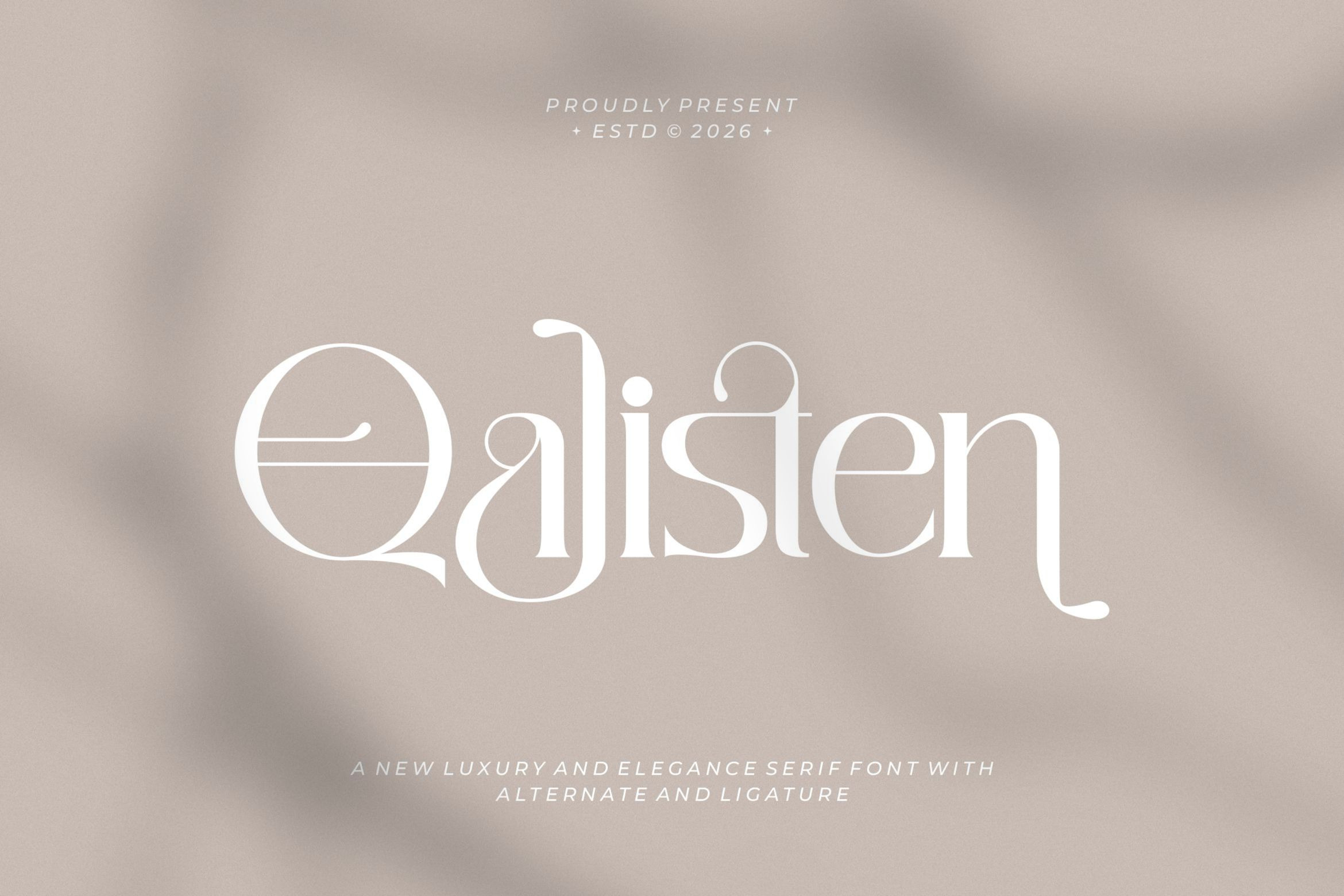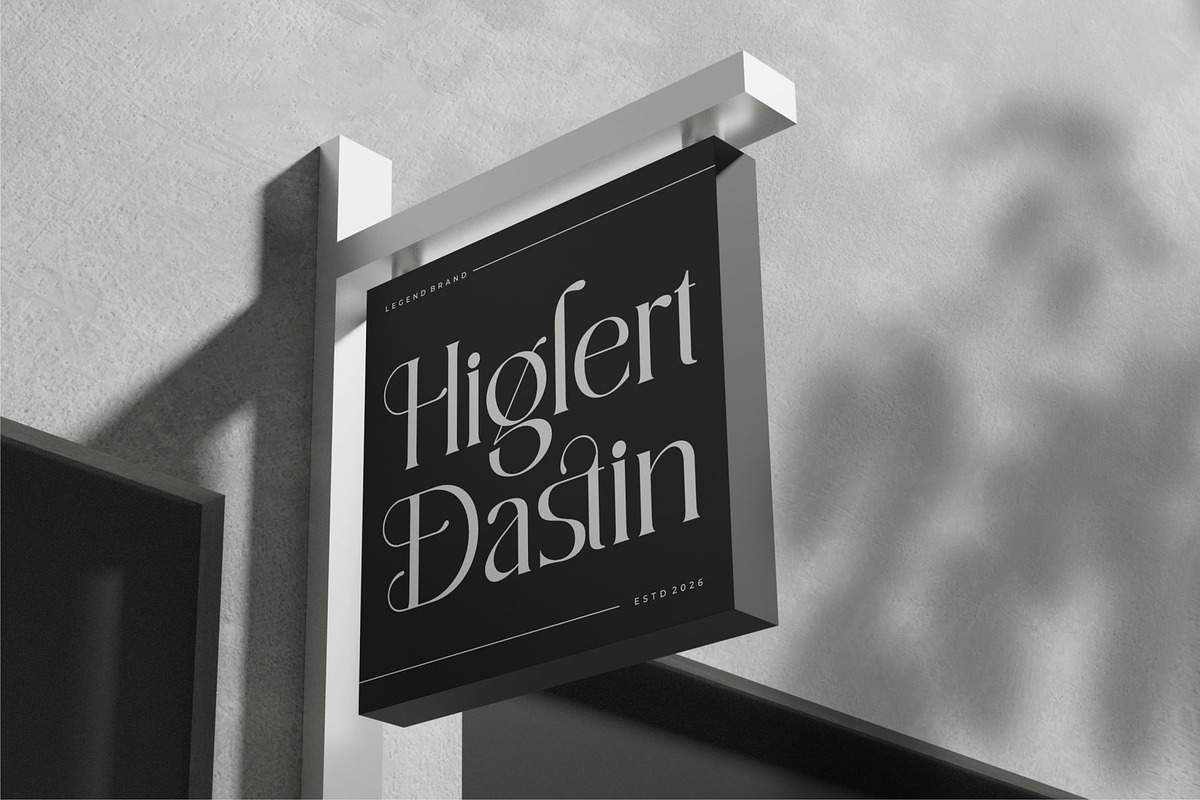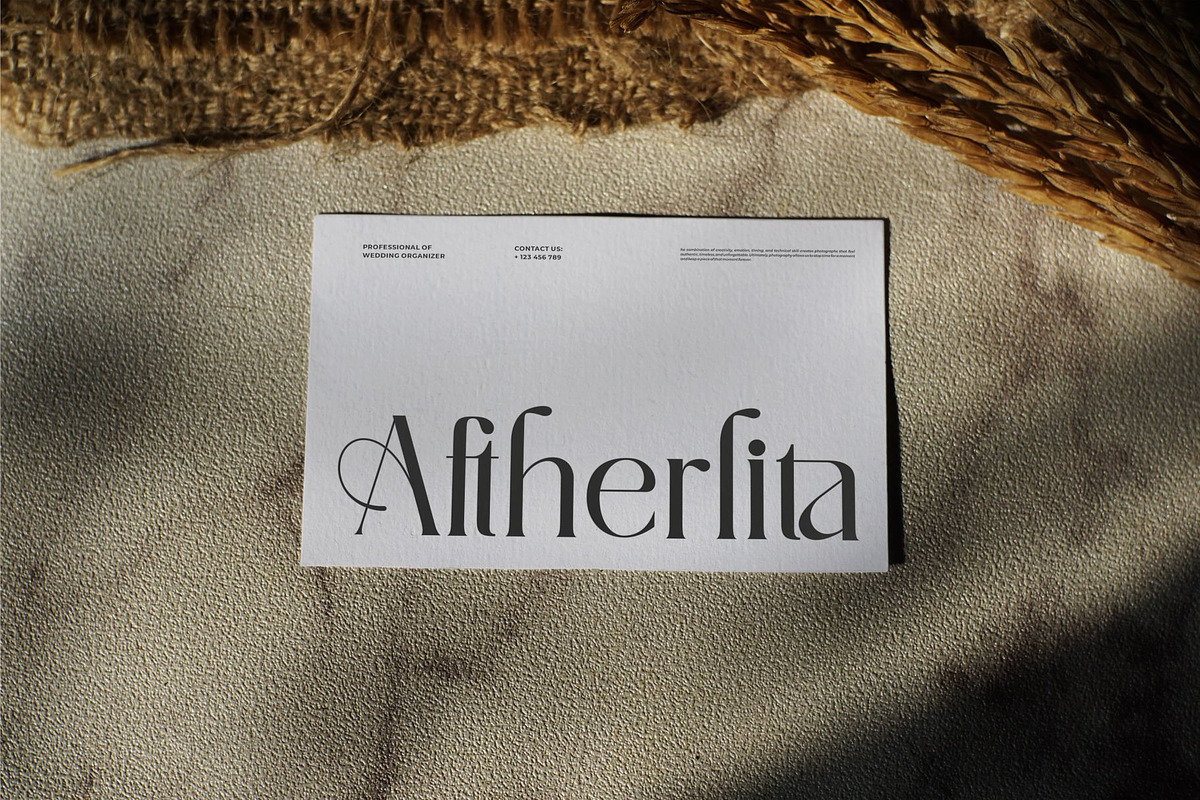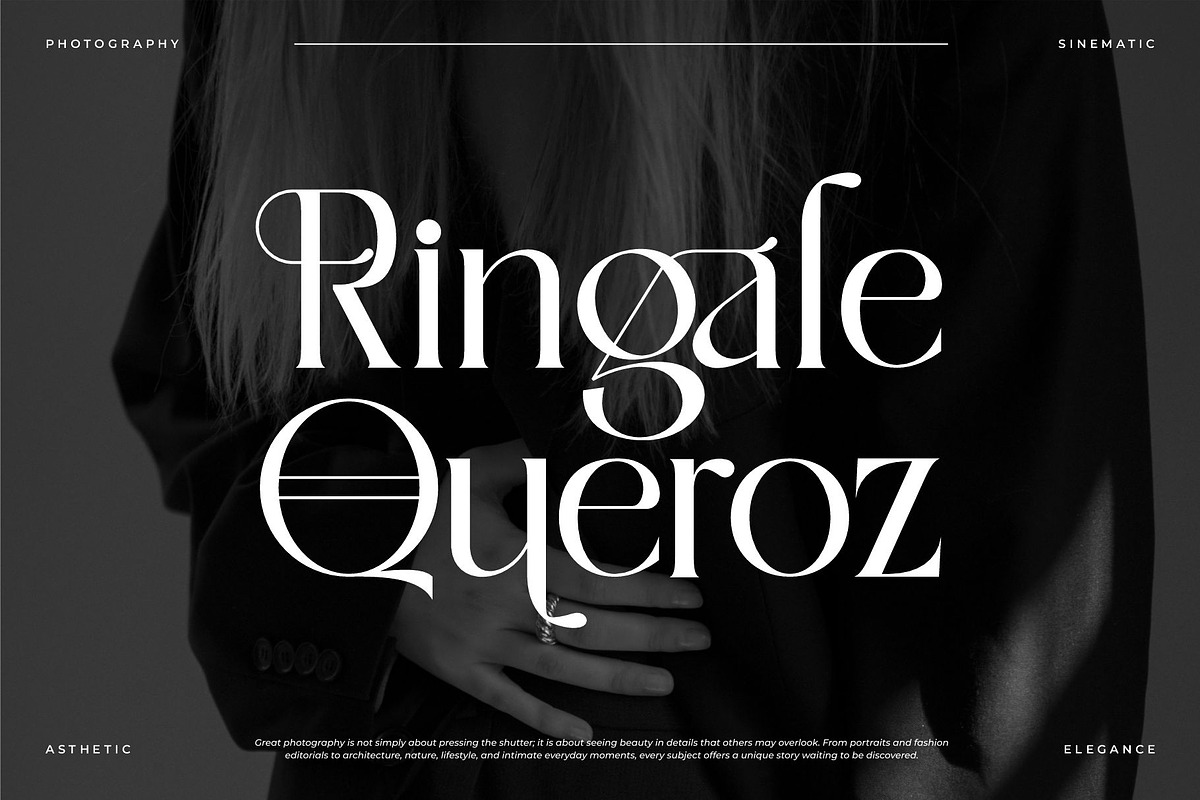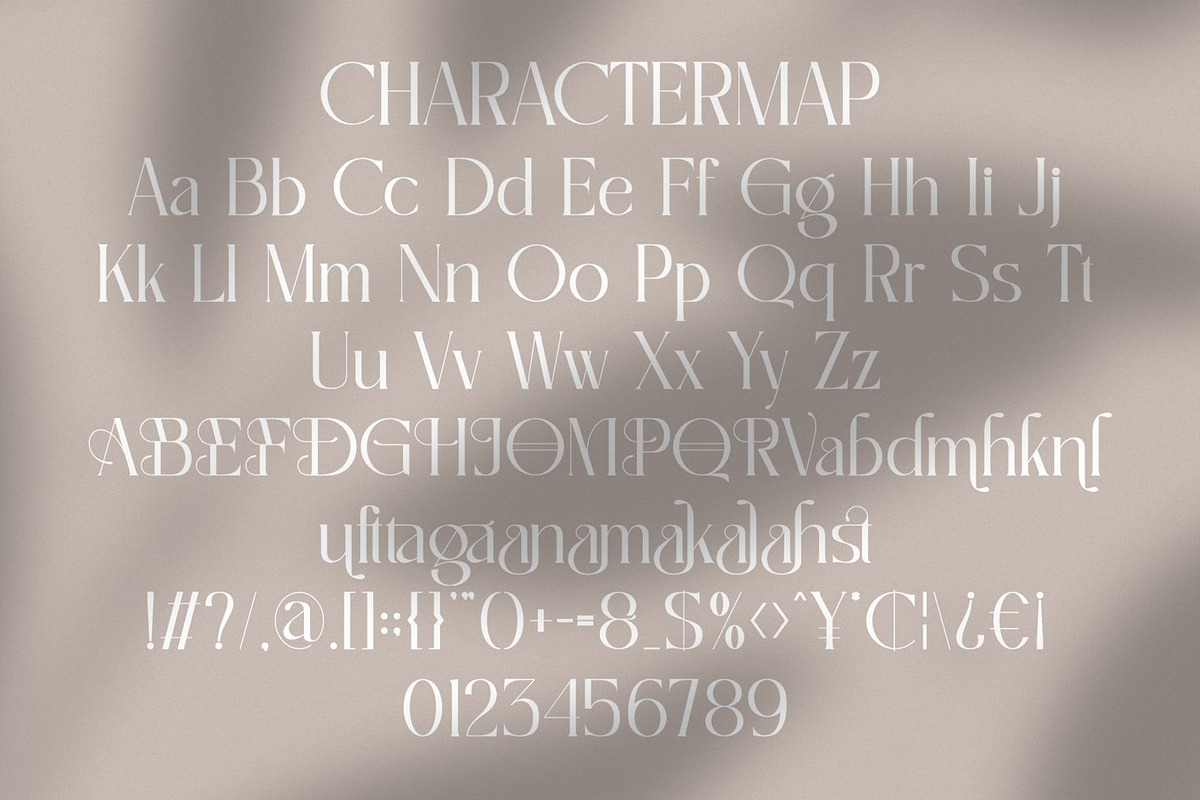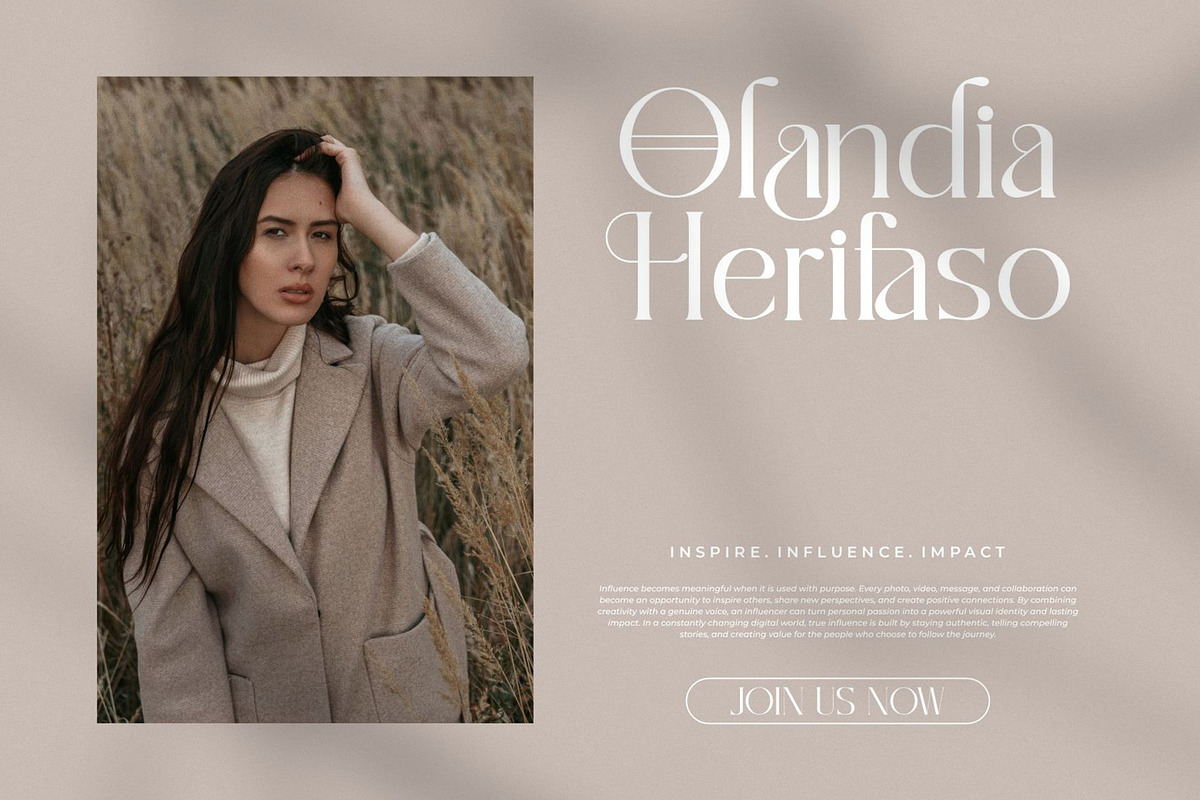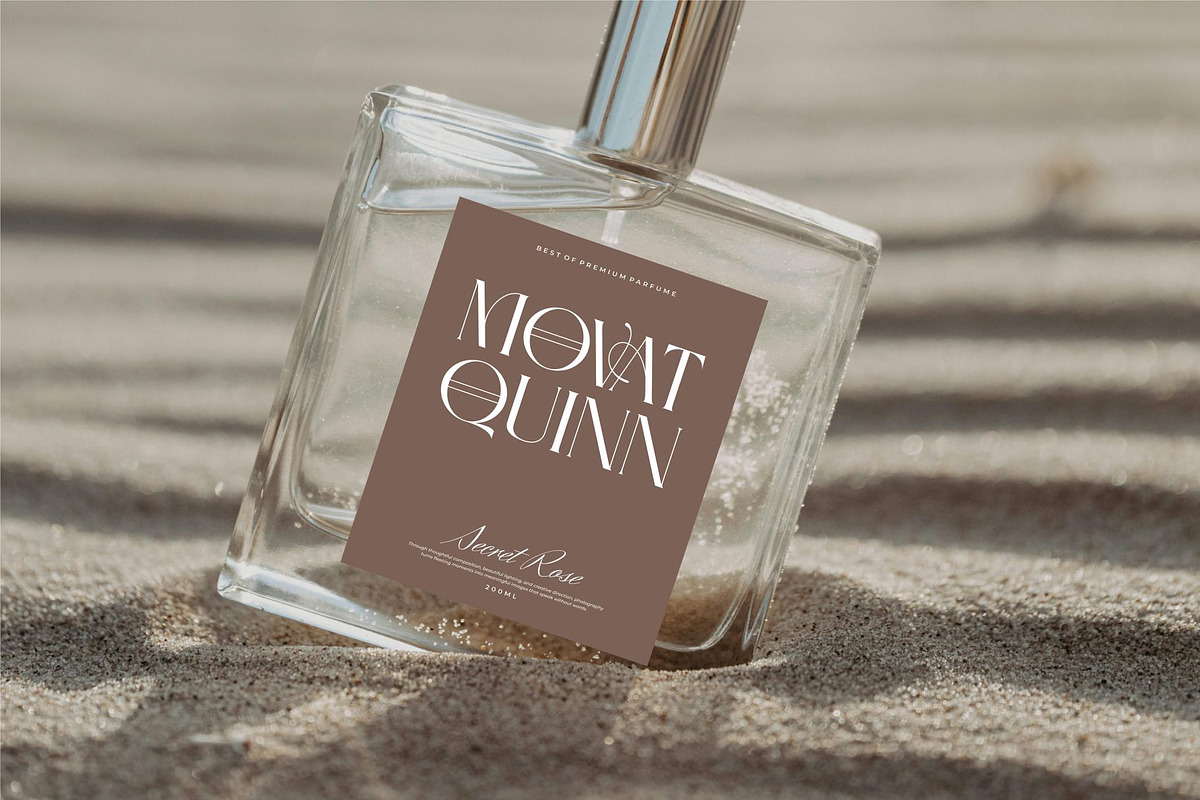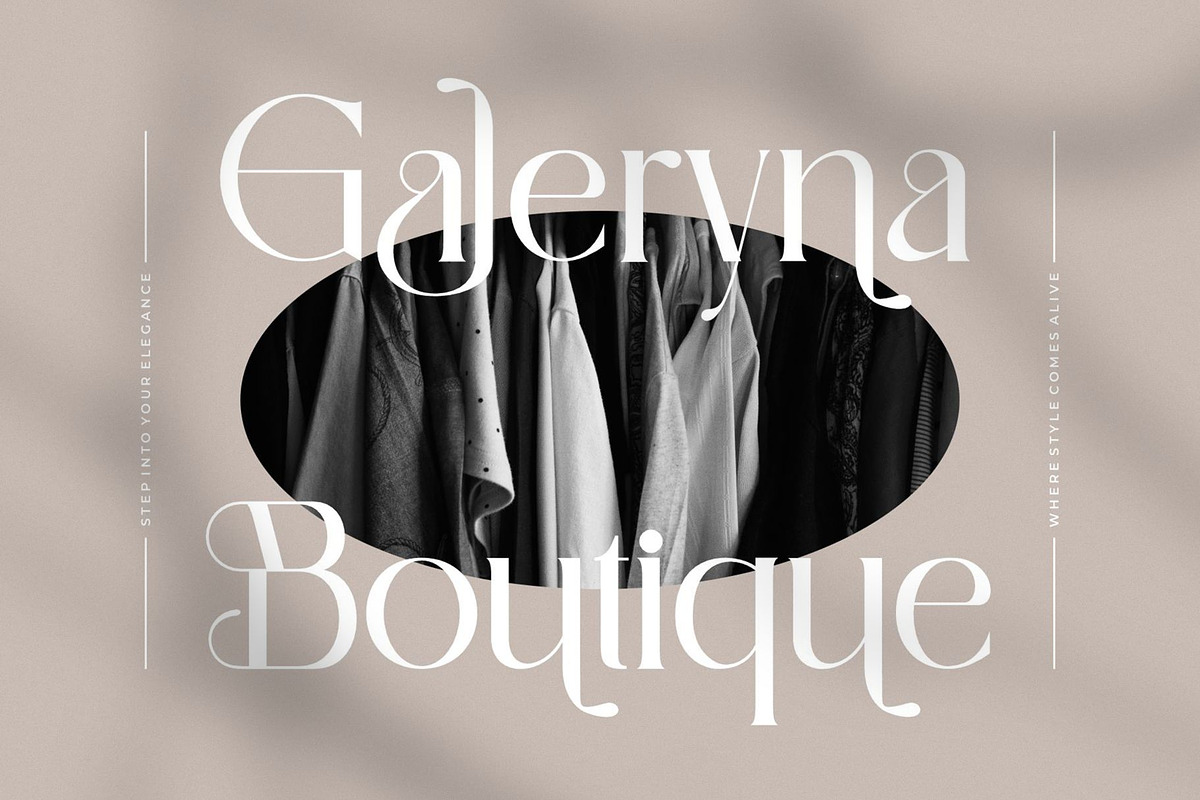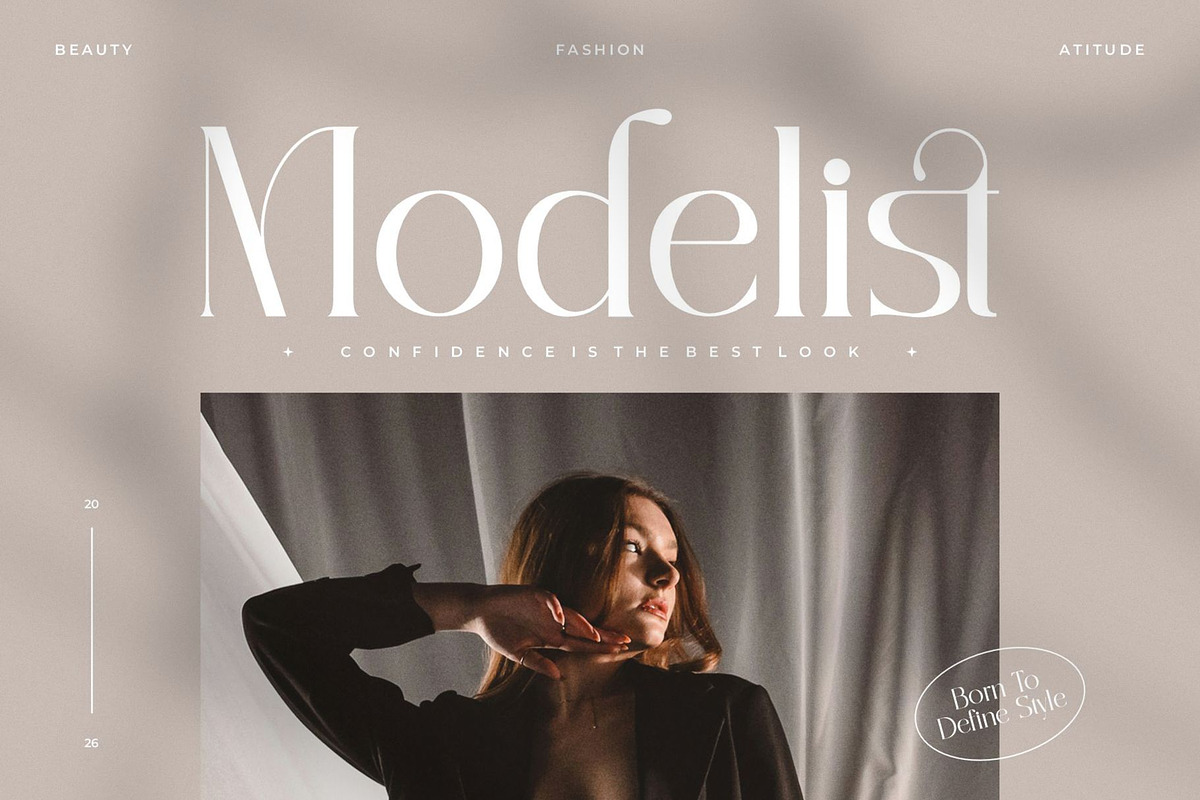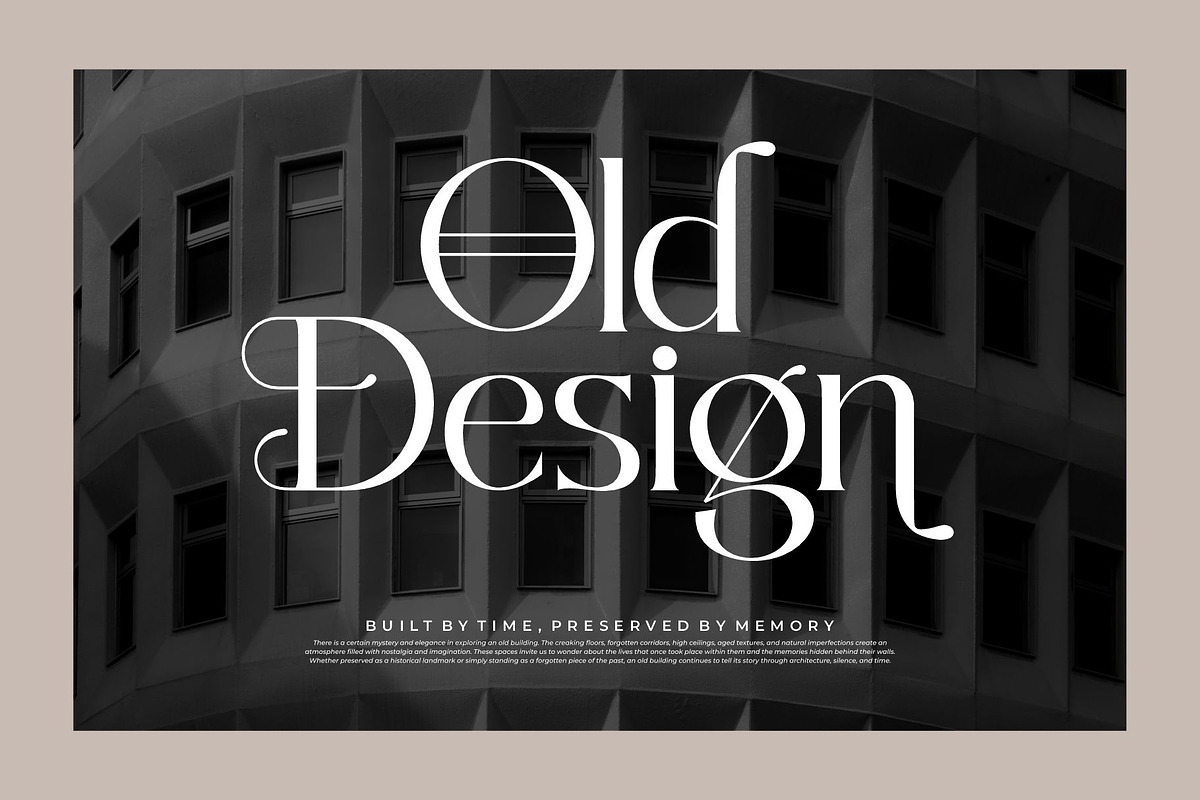
Qalisten | Modern Elegant Serif Font
Qalisten Serif is a modern and classy font type for all branding and logo designs. This modern and classy Serif font has a beautiful character. This font is suitable for invitation card designs, cool logos, movie titles, movie names, business cards, book titles, brand names, and various other designs. Qalisten Serif is a smooth serif font that exudes sophistication and the moment. Its stylish ligatures make this font a perfect partner for any project.